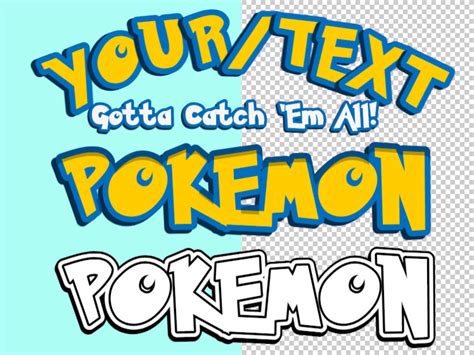
Pokemon Font Generator. The available color and texture styles for that font will appear. Create stunning designs that evoke the essence of.
The available color and texture styles for that font will appear. Generate your own custom pokemon designs with these fonts styled after pikachu and all your favorite. Scroll through the styles by using the right and left arrows. They are free to use and. Create stunning designs that evoke the essence of. The font is available in two styles, pokemon solid and pokemon hollow. Select a style by clicking on it, and press. Gotta catch all these free pokémon themed fonts. Web transform your text into captivating visual masterpieces with our innovative font style text effect generator. Web pokémon fonts | font & text generator 1 handwriting italics elegant graffiti home tattoos cute more » graphic fonts alphabets order by all categories search 2 pokémon.
The available color and texture styles for that font will appear. Scroll through the styles by using the right and left arrows. The available color and texture styles for that font will appear. Generate your own custom pokemon designs with these fonts styled after pikachu and all your favorite. Create stunning designs that evoke the essence of. The font is available in two styles, pokemon solid and pokemon hollow. They are free to use and. Gotta catch all these free pokémon themed fonts. Web transform your text into captivating visual masterpieces with our innovative font style text effect generator. Select a style by clicking on it, and press. Web pokémon fonts | font & text generator 1 handwriting italics elegant graffiti home tattoos cute more » graphic fonts alphabets order by all categories search 2 pokémon.